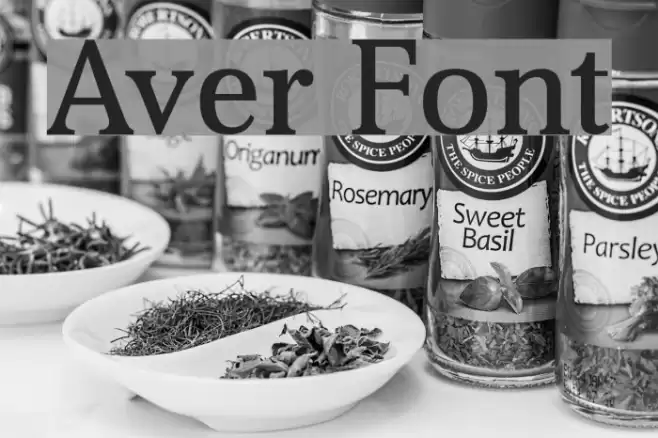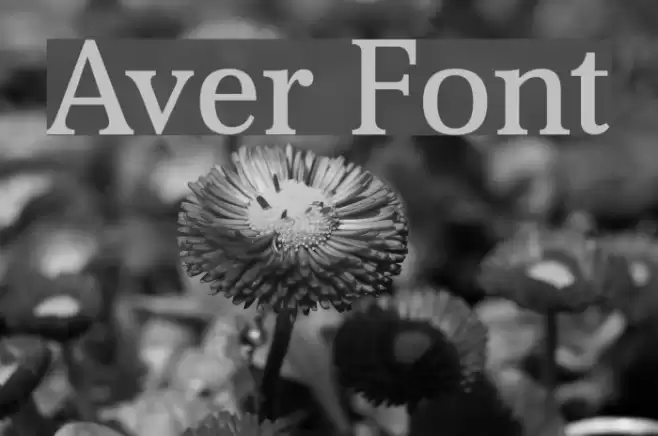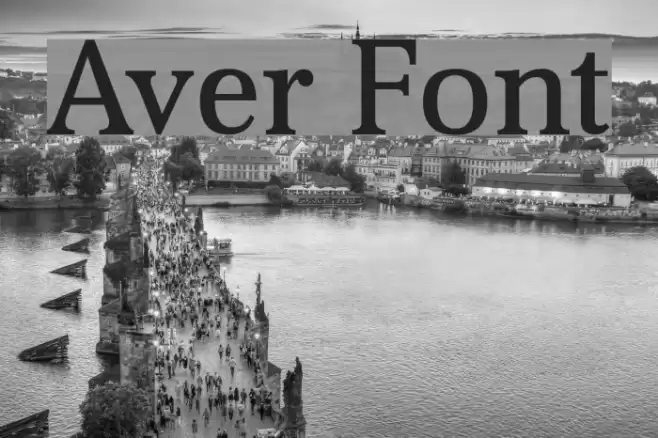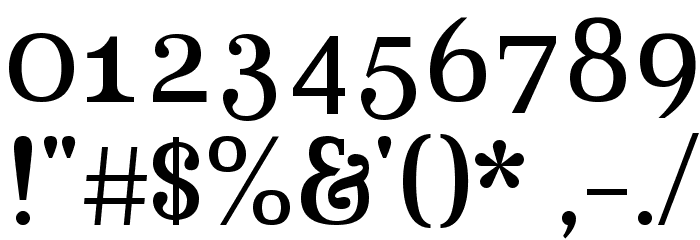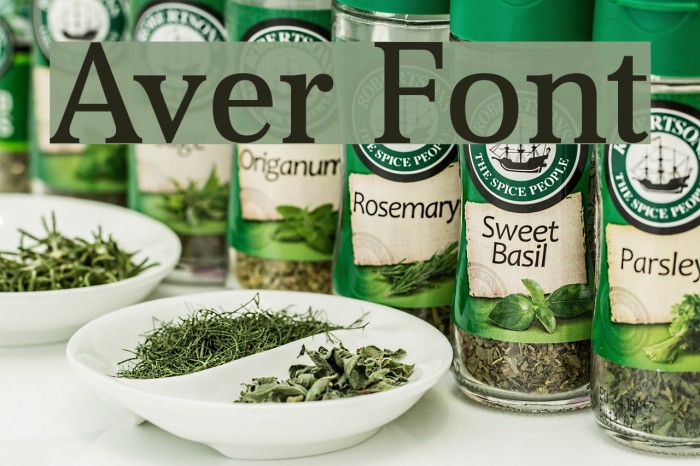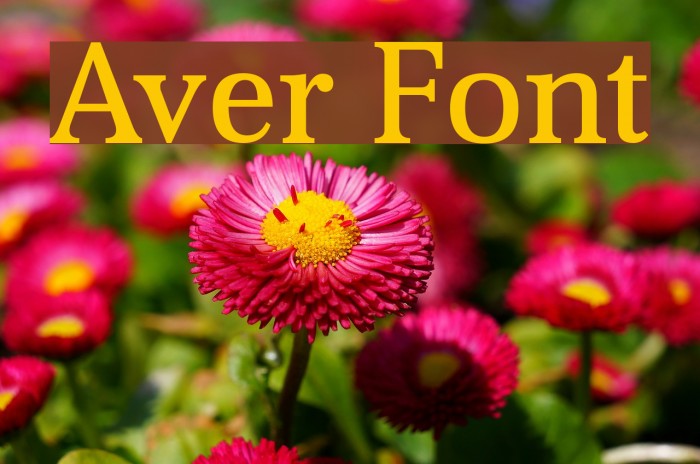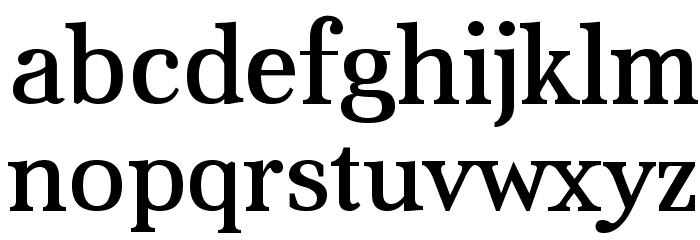
Aver
This font exhibits a classic serif style with a strong presence and elegant curves. The uppercase letters are bold and commanding, while the lowercase letters maintain a consistent and readable form. The numerals are well-proportioned, ensuring clarity and balance. Special characters are designed with attention to detail, complementing the overall aesthetic. The font's structure is traditional yet versatile, making it suitable for a variety of applications. Its timeless appeal is enhanced by the moderate contrast in stroke thickness, providing a harmonious visual experience.
A classic serif font with elegant curves and moderate contrast.
- Proposed Projects: Ideal for editorial design, book covers, formal invitations, and branding projects that require a touch of sophistication.
- Category: Serif
- Overall Style: Classic